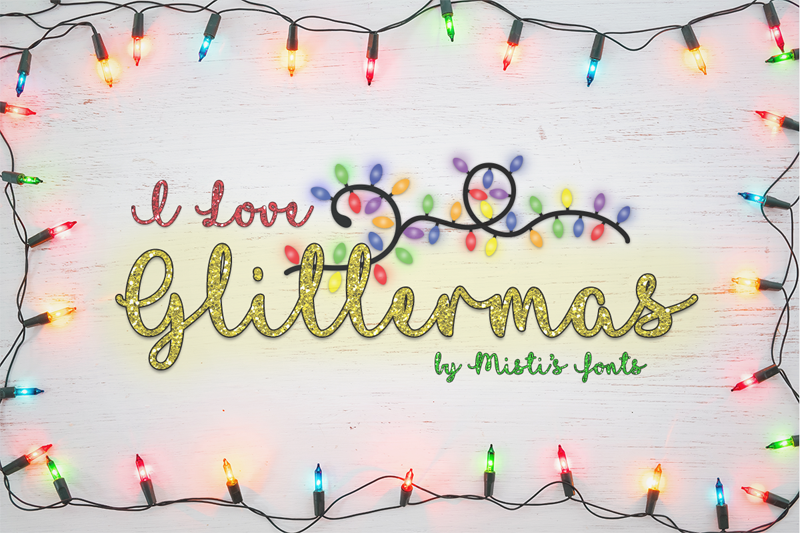
Preview and download I Love Glittermas Font. Created by Misti's Fonts in Holiday Christmas styles with Free for personal use license.
I Love Glittermas is a spectacular handwritten font with cute festive elements. This font has a Christmas Holiday theme. Use it to make your ideas even more realistic and create spectacular designs! Terms Of Use & Commercial Licensing: https://mistifonts.com/i-love-glittermas/ How to type the symbols: https://mistifonts.com/fonts/pdf/i-love-glittermas-symbol-guide.pdf |